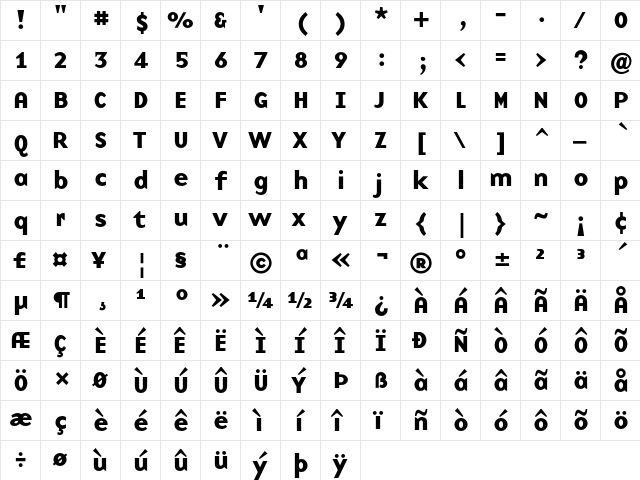
BaseNine Bold
Design Context for BaseNine Typeface
BaseNine offers clean, dependable letterforms without strong stylistic allegiance, making it a practical choice for designers who need flexibility. Its bold stroke weight gives it real presence on the page.
Pro Tip: Use BaseNine in both headline and body roles to test its range before committing to a single application.